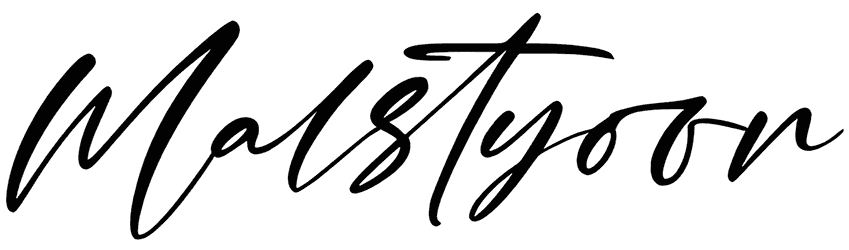
Malstyoor Font
With its organic and flowing shape, this handwritten font is happy to display its maximum potential in the creation of any book, greeting cards, flyers, invitations, and wherever else you need a handwritten design. Malstyoor font will help you show your deepest feelings through the work you do, even though it might be difficult to read. Please visit RB if you require any further information.